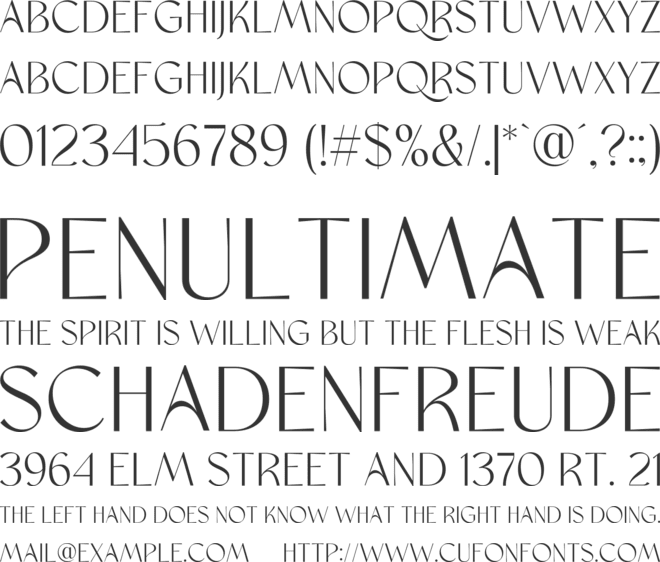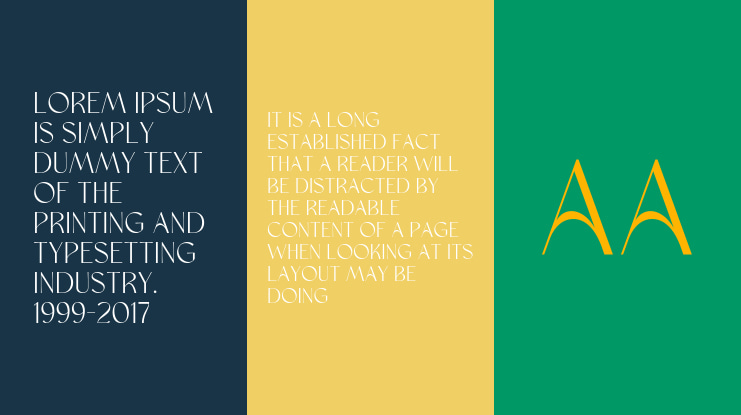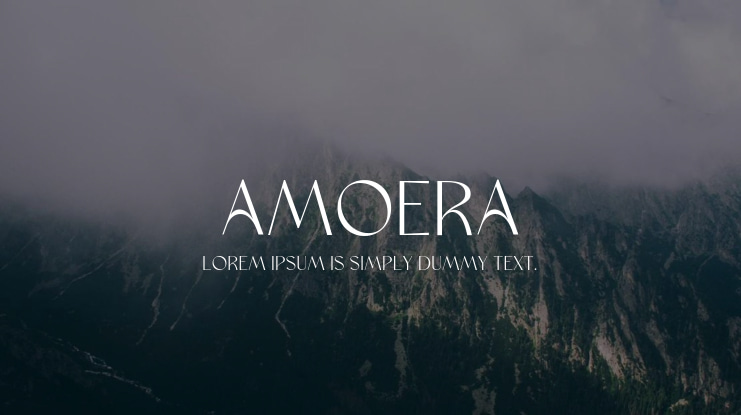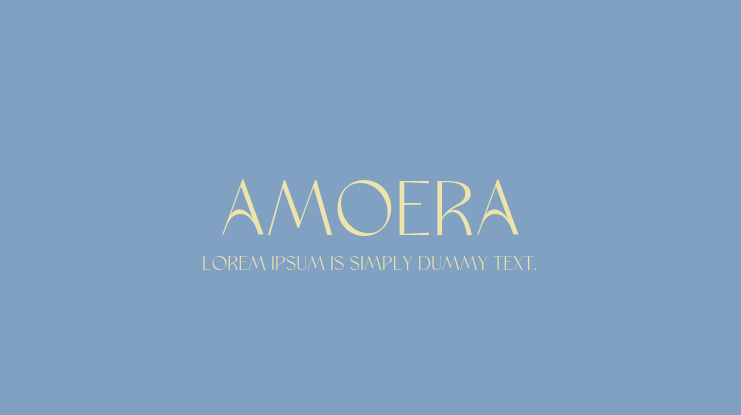
Amoera Font
Amoera is a modern elegant, sophisticated and contemporary serif typeface. With its clean lines and timeless simplicity, this font is meticulously crafted by skilled artisans, making it the ideal choice for your grandest endeavors. If you wish to purchase a COMMERCIAL LICENSE, please click on the following links: https://vampfonts.com/shop/amoera